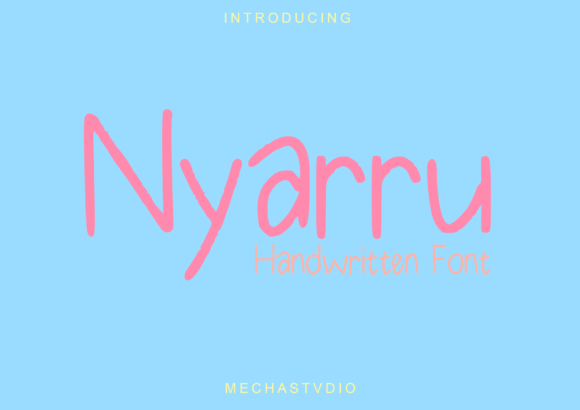
Introducing Nyarru Font, the handwritten sans serif that brings a touch of playfulness and individuality to your designs. With its unique character, Nyarru is more than just a collection of letters – it's an expression of your creativity.
Immerse yourself in the charm of Nyarru's free-flowing strokes and let your designs dance with its rhythmic curves. Its versatile nature makes it a perfect match for any project, adding a touch of whimsy to invitations, branding, social media graphics, and more. Unleash your imagination with Nyarru and craft designs that resonate with your unique style.
Beyond its aesthetic appeal, Nyarru is a dream to use. Its smooth lines and consistent spacing ensure effortless readability, making it a joy to work with. Whether you're a seasoned designer or just starting out, Nyarru's user-friendliness will make your design journey a breeze.
But Nyarru is more than just a font – it's an invitation to express your creativity. With its unique charm, it empowers you to create designs that stand out from the crowd. Unleash the artist within and let Nyarru be your muse, inspiring you to create designs that captivate and enchant.